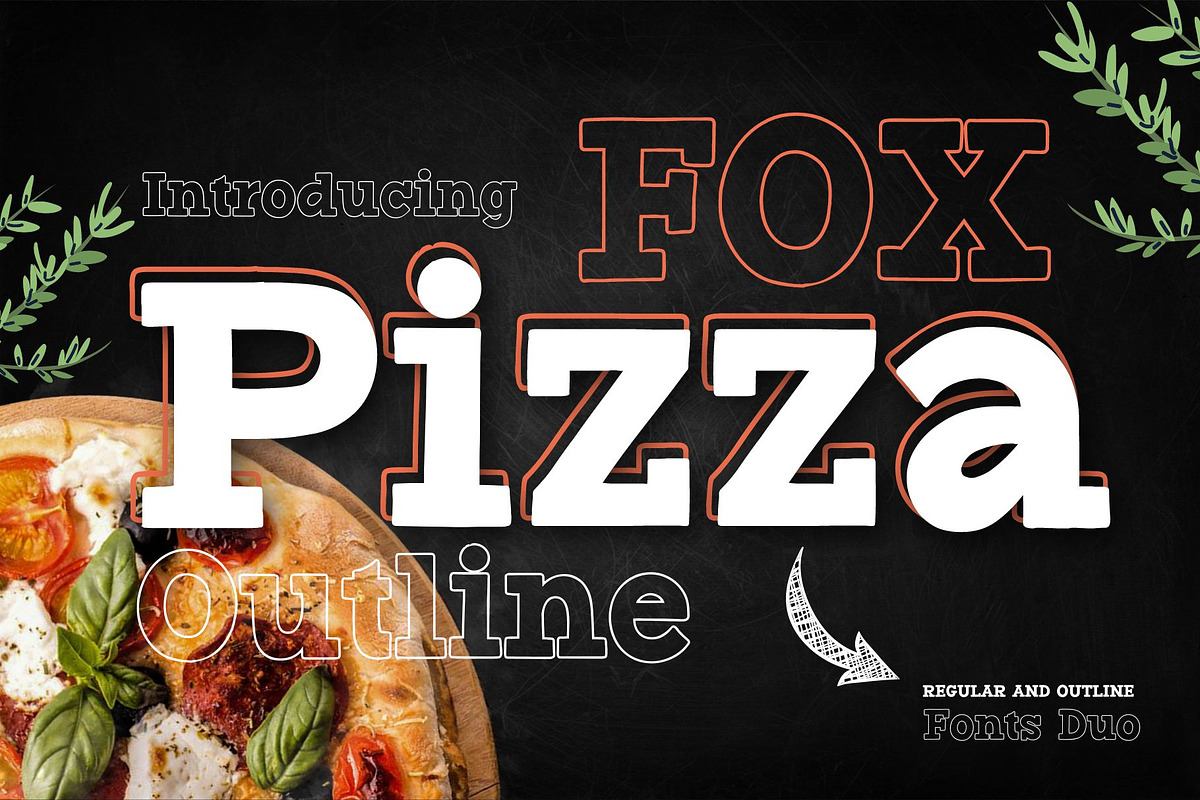
Please note, to use this font for commercial purposes, you must purchase the full version. Fox Pizza is a fun and playful font that brings a lively, bold style to your designs. Perfect for restaurant logos, food packaging, branding, and promotional materials, this font adds a quirky and energetic feel to your work. Whether you're designing for a pizza brand, a food truck, or a casual event, Fox Pizza adds a deliciously unique touch to your designs. Test it out and enjoy free download access for personal use. Experience the fun and tasty style of Fox Pizza Font Free Download before purchasing the commercial license. Add a playful, vibrant touch to your designs with Fox Pizza.